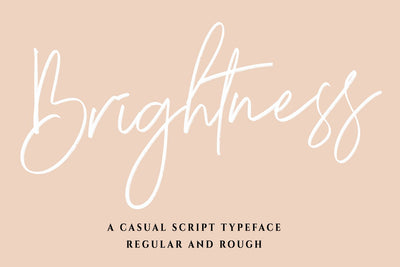
Brightness - a Brush Script Font
It’s the perfect fit for all luxury projects, such as wedding invitation, signatures, luxury logos, printed quotes, grettings cards, social media headers, product packaging and many more!
It includes a full set of uppercase and lowercase letters, multilingual symbols, numerals, punctuation and ligatures.
Brightness Script Font has a 2 font : Reguler and Rough Style.